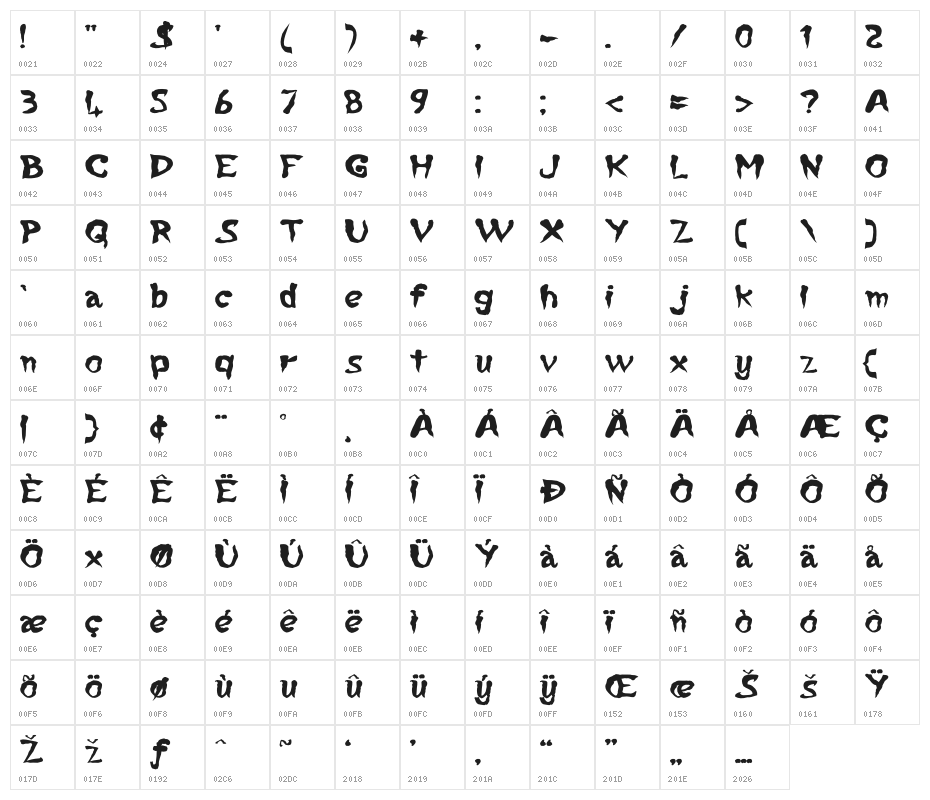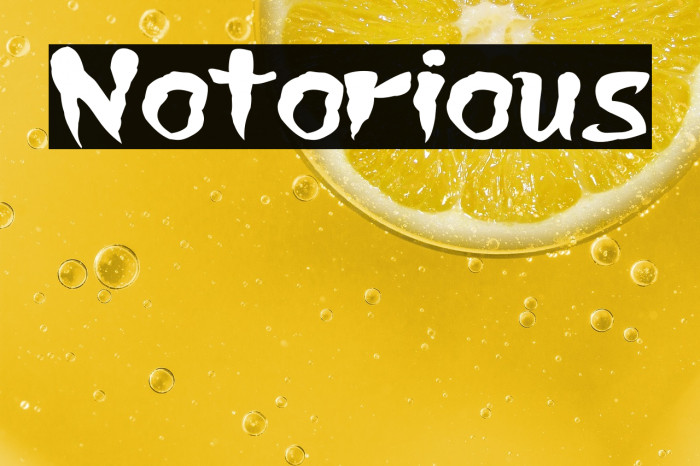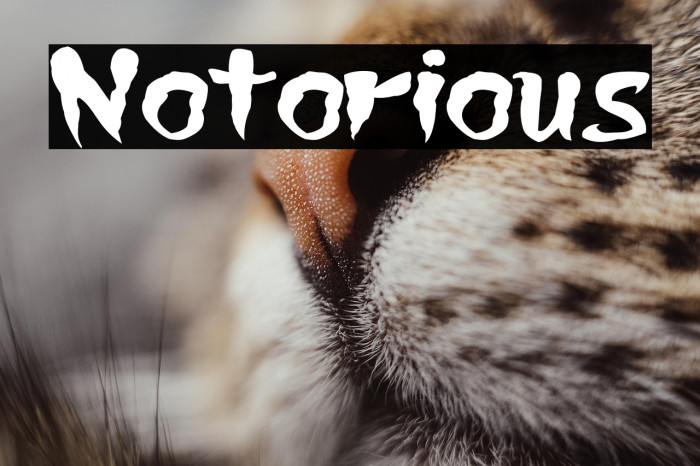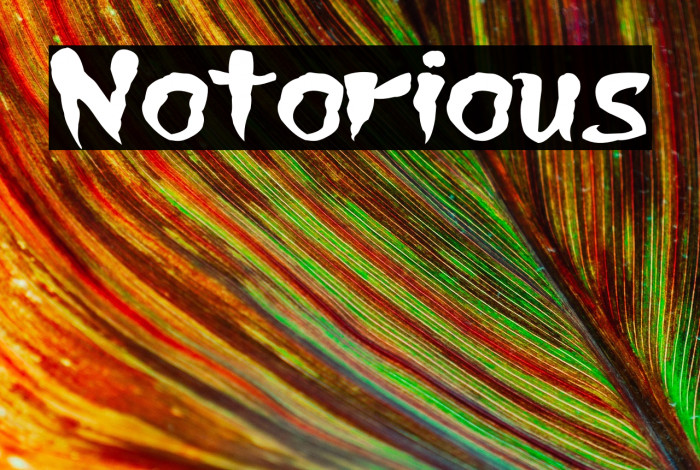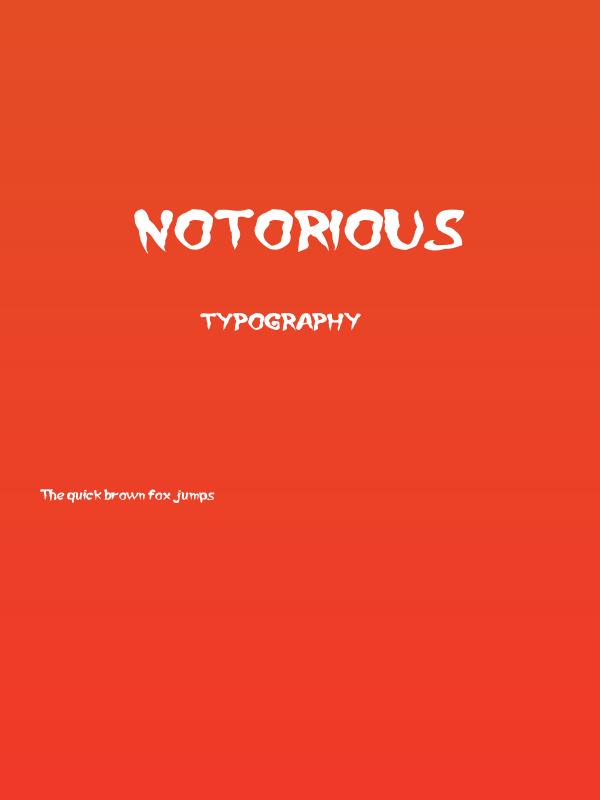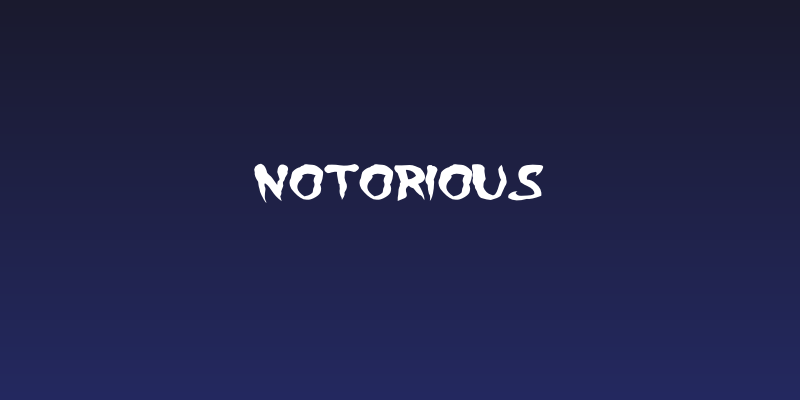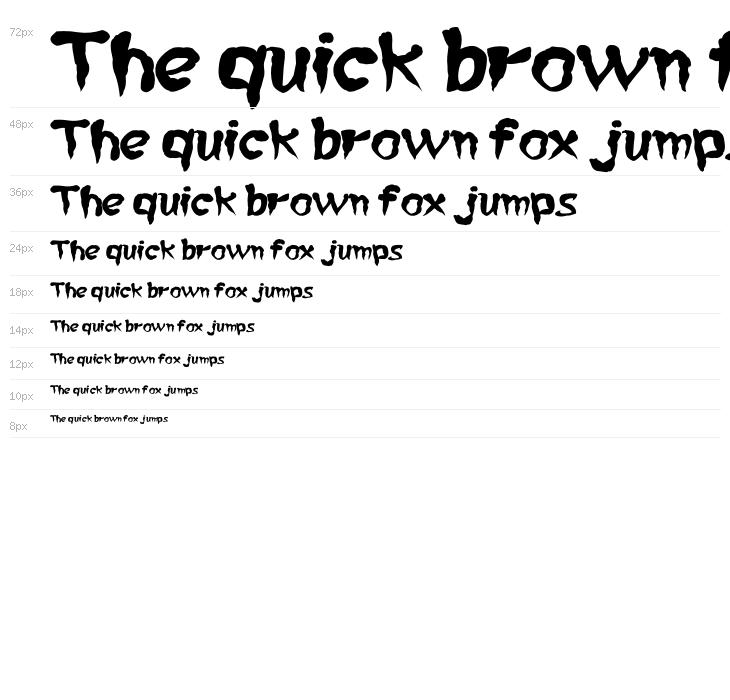
Notorious Font
Notorious Description
This font features a bold and dramatic style with a hand-drawn appearance, characterized by irregular, jagged edges and a slightly chaotic form. The letters have a dynamic and energetic feel, with varying stroke widths that add to its expressive nature. The uppercase and lowercase letters maintain a consistent style, while the numbers and special characters complement the overall aesthetic. This font's unique and eye-catching design makes it suitable for projects that require a strong visual impact.
| Proposed Projects | Ideal for posters, album covers, graffiti art, and any project needing a bold, expressive typeface. |